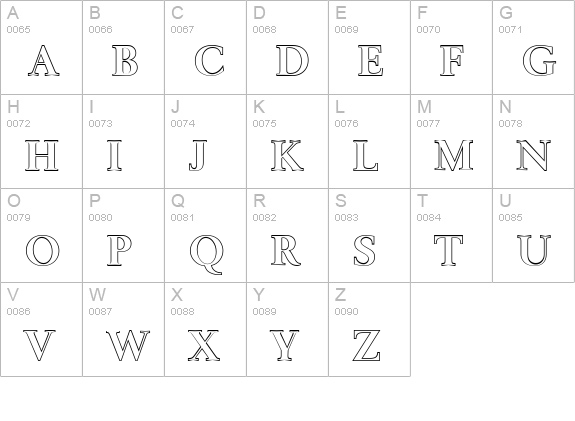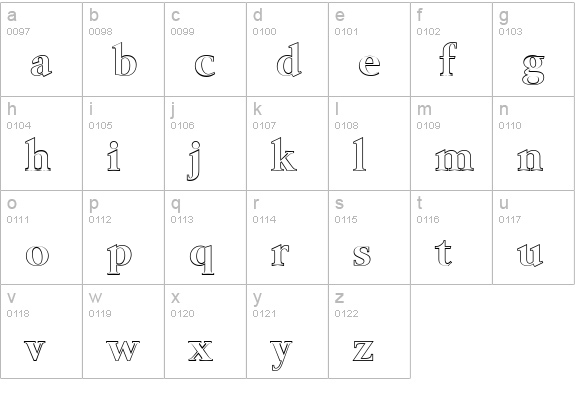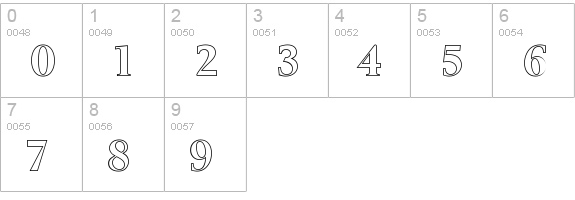
BelfastOutline-Bold Font Details
BelfastOutline-Bold is a strong, high-contrast variant in the BelfastOutline typeface family \xE2\x80\x94 well suited to headlines, attention-grabbing titles, and strong calls-to-action.
BelfastOutline-Bold font is a striking and modern typeface designed to make a bold statement. With its clean lines and geometric shapes, this font exudes confidence and sophistication. Perfect for headlines, posters, and branding materials, BelfastOutline-Bold will make your designs stand out from the crowd. And the best part? BelfastOutline-Bold is available for free download at FontsMarket.com! So why wait? Add this versatile and eye-catching font to your collection today and take your designs to the next level.